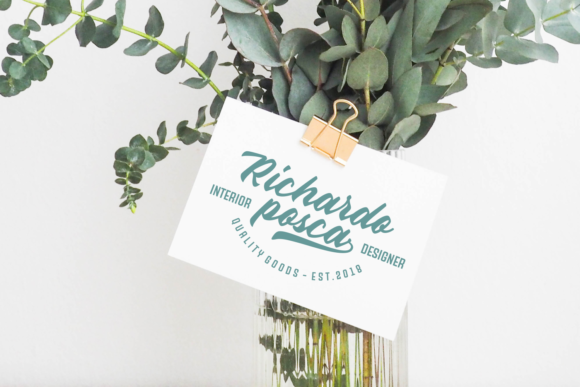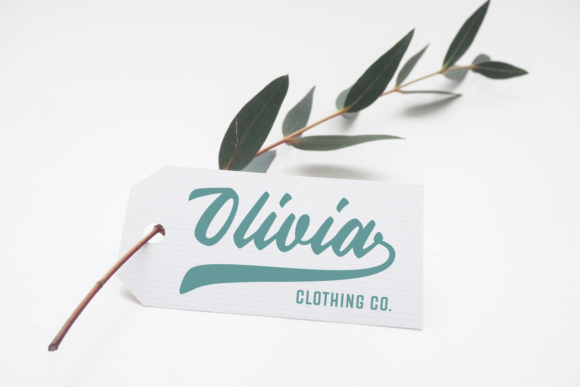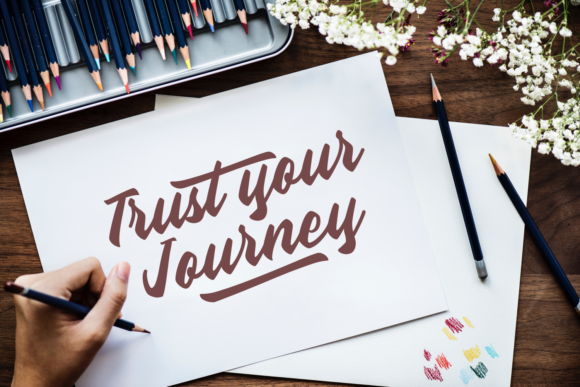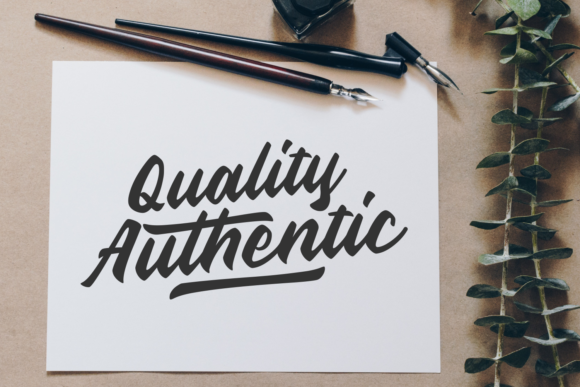
Introduction to Aliena Font
Aliena is a beautiful typeface which can be used for various purposes.
To access the underline ligature: type double underscore and number for underline after a word .
Key Features of Aliena Font